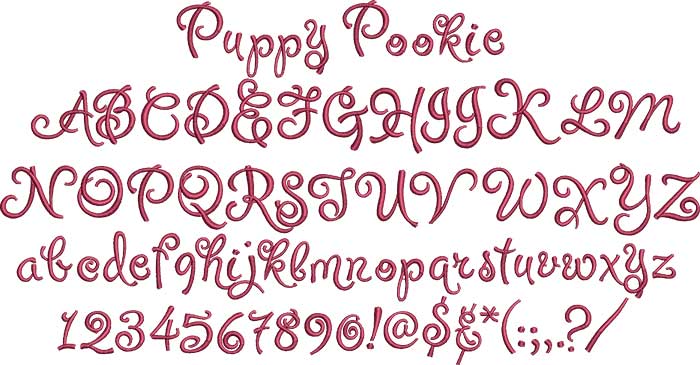
BX Embroidery Font: Puppy Pookie
BX Embroidery Font: Puppy Pookie Font Bundle (4 sizes) is a curly, handwritten stylized script machine embroidery font that includes A-Z, a-z, 0-9 and punctuation; 4 sizes.
BX Embroidery Font: Puppy Pookie is a curly, handwritten stylized script machine embroidery font that includes A-Z, a-z, 0-9 and the following punctuation: !@$&*()-+=|:;”‘<>,.?/ (83 total characters).